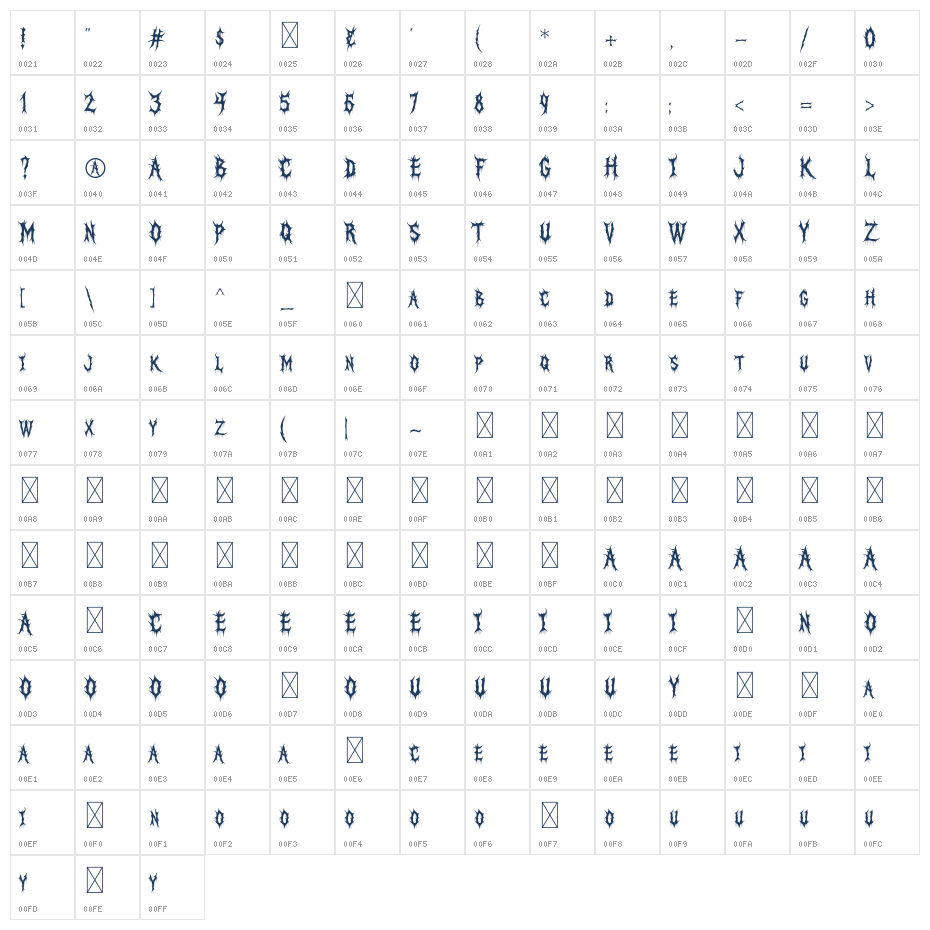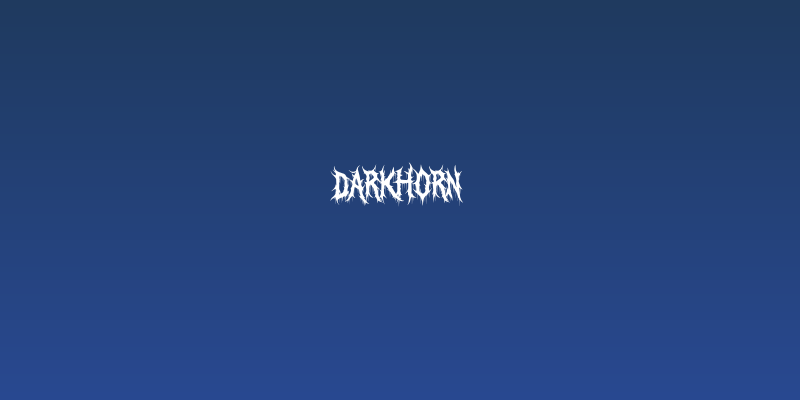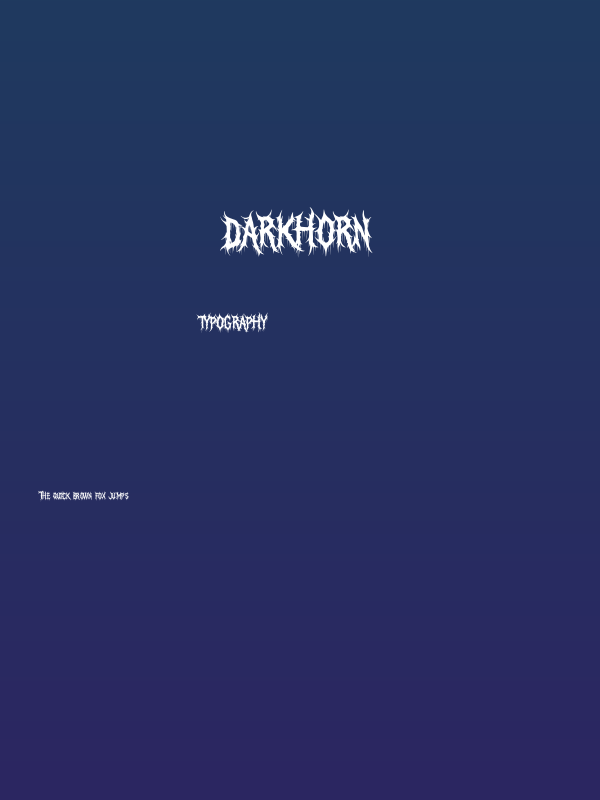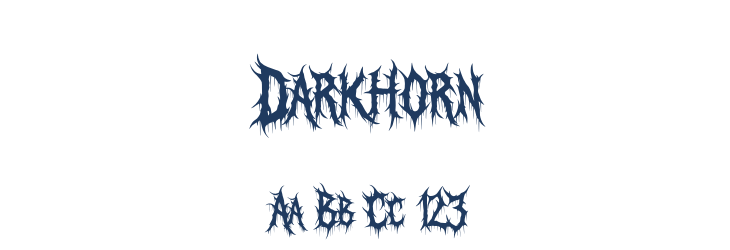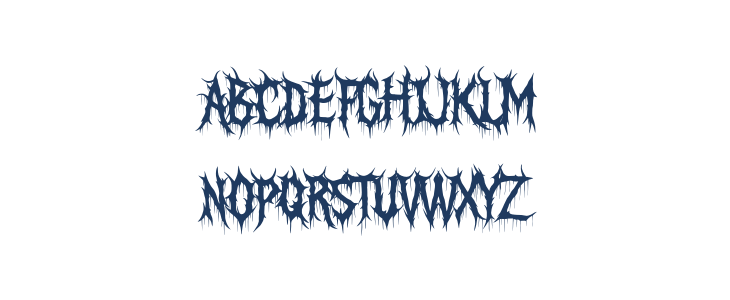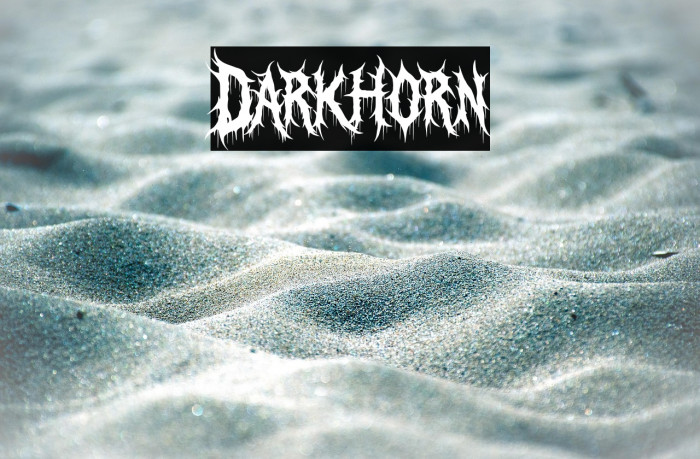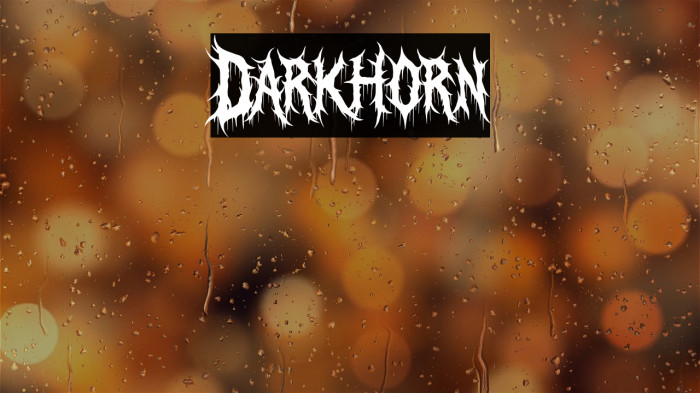
Darkhorn Font
Darkhorn Description
A decorative, spiky, horror-themed display font with intricate, jagged edges resembling thorny or flame-like designs.
| Overall Style | Gothic, Horror, Edgy |